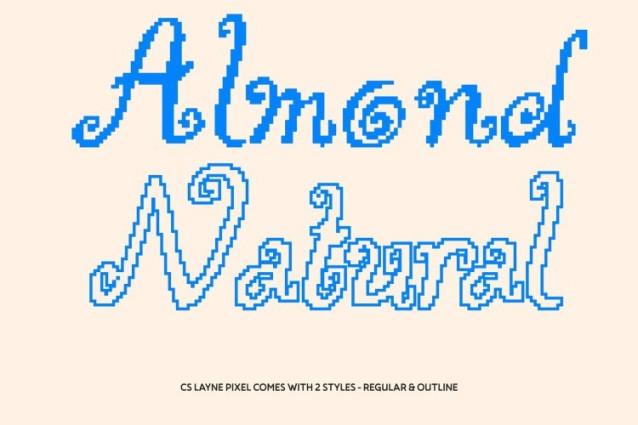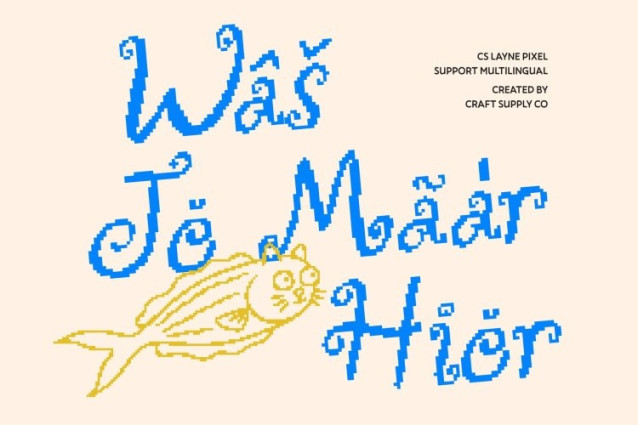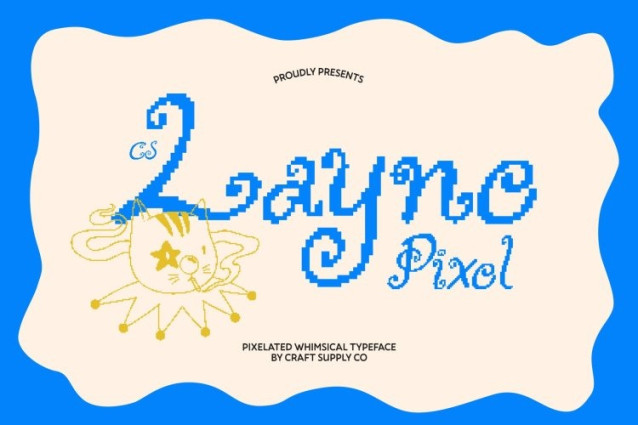
CS Layne Pixel Font This is a distinctive display font infused with fantasy charm and imaginative spirit, elevated by a playful pixel style. Its creative letterforms and whimsical details bring a sense of magic and individuality, turning simple text into expressive visual statements. The pixel touch adds a nostalgic digital flavor that feels eye-catching and full of character.
Handcrafted Pixel Texture for Artistic Personality
The subtle drawn texture combined with pixel construction gives this font a handcrafted, artistic feel. Each letter appears lively and organic, adding warmth and authenticity to your typography. This unique blend of handmade charm and pixel aesthetics creates a rich visual personality that feels creative, personal, and visually engaging.
Perfect for Whimsical and Creative Design
This font shines in whimsical branding, fantasy-inspired posters, game visuals, children’s projects, and expressive creative layouts. Its energetic rhythm and imaginative forms instantly capture attention, making it ideal for storytelling designs that embrace creativity, playfulness, and a touch of fantasy.
Expressive Typography with a Digital Fantasy Twist
Balancing charm, creativity, and pixel nostalgia, this font delivers an enchanting typographic experience. Its fantasy-inspired shapes and playful texture create visuals that feel magical, energetic, and memorable. This font is the perfect choice for designers who want typography that feels fun, imaginative, and full of personality especially for digital and retro-tech inspired designs.